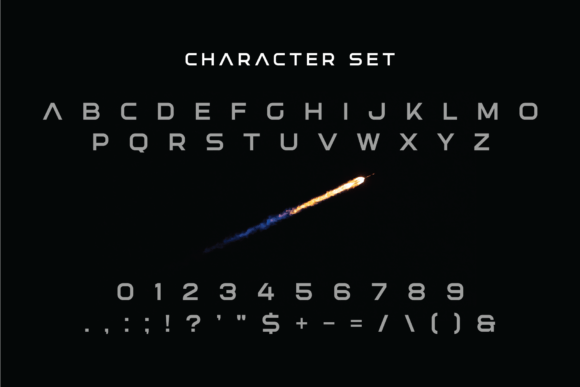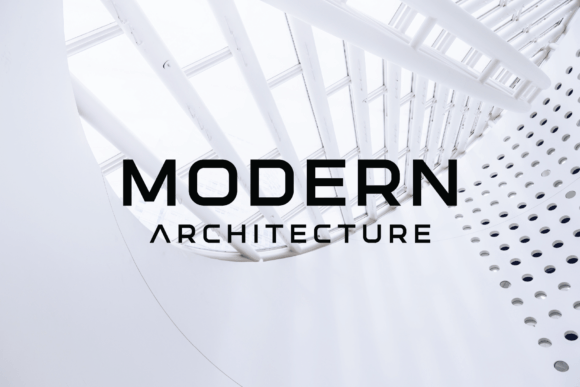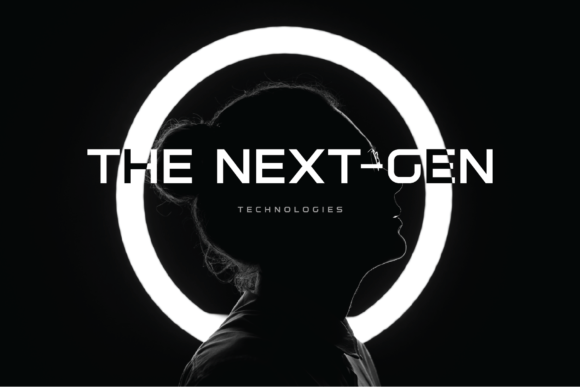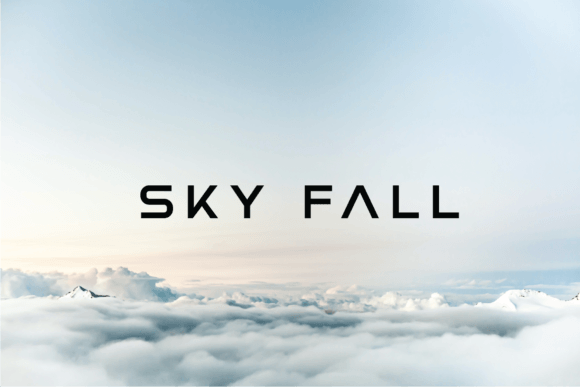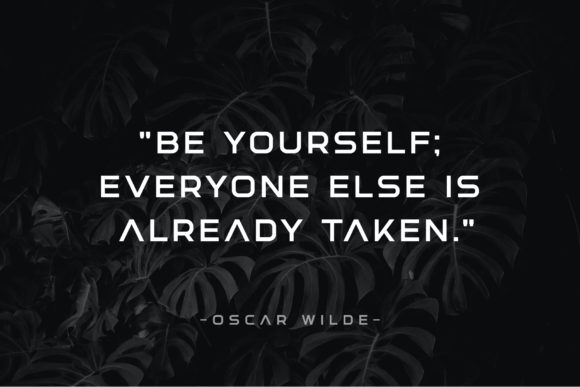
Introducing Avec Font: The Modern Sci-Fi Typeface for Bold Designs
In the world of typography, fonts play a crucial role in conveying the tone and personality of a design. For designers and crafters looking for a modern and futuristic typeface, Avec Font is an excellent choice. This modern blocky but clean sci-fi font has a unique style that adds a touch of elegance and boldness to any design.
What is Avec Font?
Avec Font is a contemporary typeface designed with a futuristic approach. Its blocky yet clean design makes it stand out from other fonts in the sci-fi category. The font has a slightly bold appearance, which gives it a strong and confident look. Avec Font is perfect for designers who want to create bold and eye-catching designs that convey a sense of innovation and modernity.
Key Features of Avec Font
- Modern and Futuristic Design: Avec Font has a unique style that is both modern and futuristic. Its clean lines and blocky design make it perfect for sci-fi themed designs.
- Slightly Bold Appearance: The font has a slightly bold appearance, which gives it a strong and confident look.
- Elegant and Bold: Avec Font adds a touch of elegance and boldness to any design, making it perfect for logo designs, social media posts, banners, and more.
- Versatile: Avec Font is a versatile typeface that can be used for a wide range of design projects, from digital designs to print materials.
Use Cases for Avec Font
Avec Font is a perfect choice for a variety of design projects, including:
- Logo Designs: Avec Font’s unique style and bold appearance make it an excellent choice for logo designs.
- Social Media Posts: The font’s modern and futuristic design makes it perfect for social media posts, especially for tech and sci-fi related brands.
- Banners: Avec Font’s bold and eye-catching design makes it perfect for banners and other advertising materials.
- Digital Designs: The font is perfect for digital designs, including website headers, email newsletters, and more.
- Print Materials: Avec Font can also be used for print materials, such as brochures, flyers, and business cards.
Benefits of Using Avec Font
Using Avec Font in your designs offers several benefits, including:
- Unique Style: Avec Font’s unique style sets it apart from other fonts, making your designs stand out.
- Improved Readability: The font’s clean design and slightly bold appearance improve readability, making it perfect for digital and print materials.
- Time-Saving: Avec Font is a versatile typeface that can be used for a wide range of design projects, saving you time and effort.
Avec Font is a modern blocky but clean sci-fi font that is perfect for designers and crafters looking for a bold and futuristic typeface. Its unique style, slightly bold appearance, and elegant design make it an excellent choice for a wide range of design projects. Whether you’re creating logo designs, social media posts, banners, or print materials, Avec Font is a versatile typeface that can help you achieve your design goals.